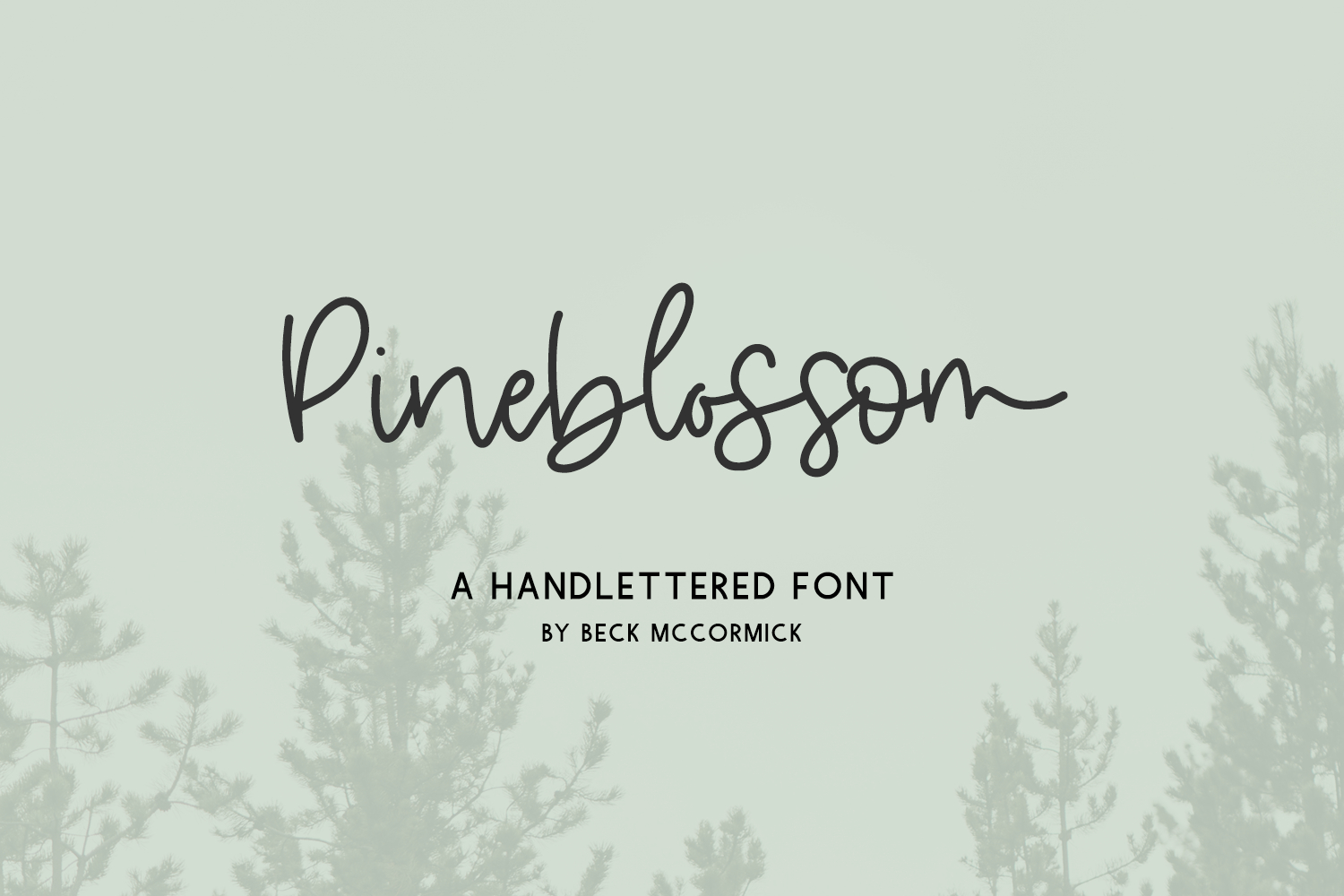
Introducing Pineblossom Script, a thin, handlettered modern calligraphy script. Pineblossom Script features 26 alternates to enhance the handwritten look & feel of your project.